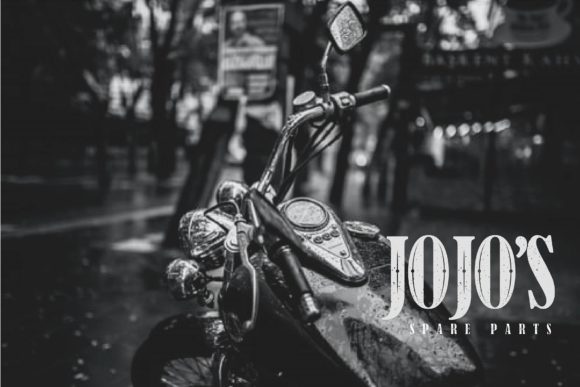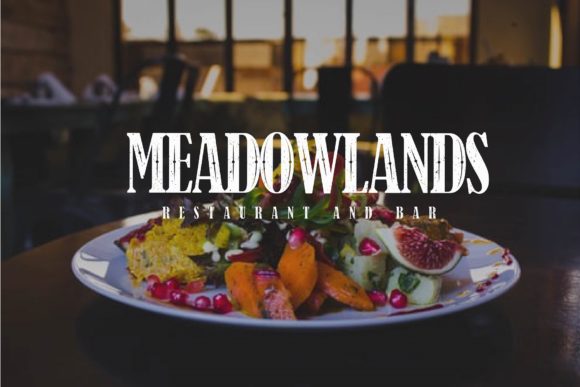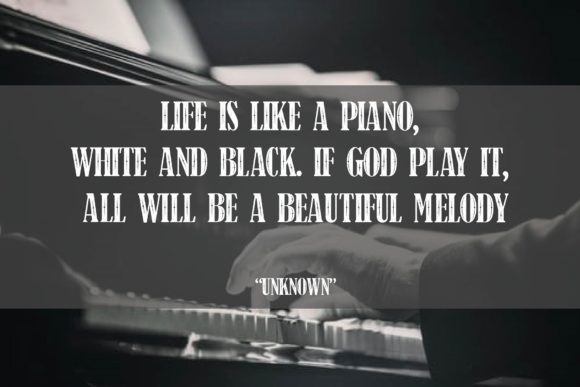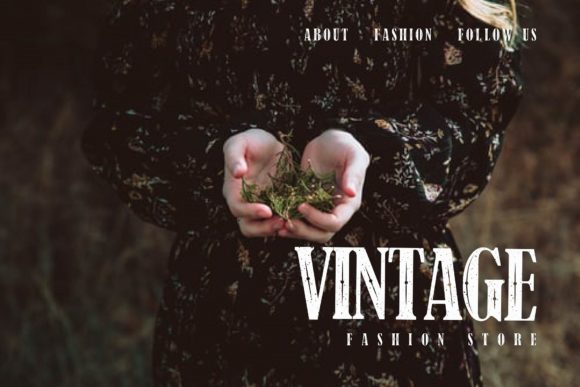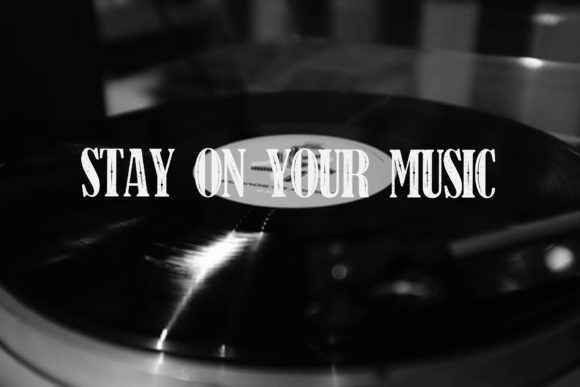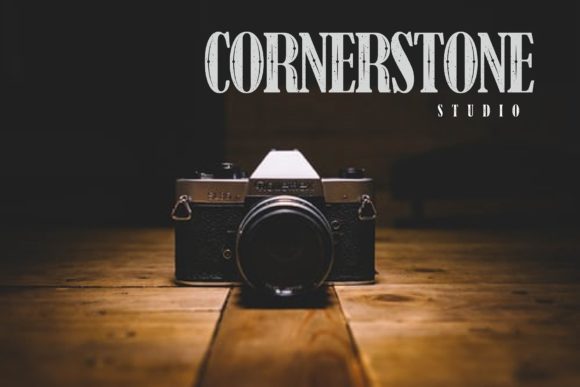
The Ultimate Guide to Billys Font: Elevate Your Designs with a Cool and Vintage Serif
I’ll never forget the time I was working on a branding project for a crafty client, and I was stuck on finding the perfect font. The client wanted something that would evoke a sense of nostalgia and sophistication, but still be eye-catching and modern. After hours of scouring through font libraries, I stumbled upon Billys Font, and it was love at first sight! 💕 In this article, I’ll share my experience with Billys Font, its features, and how to make the most of it in your designs.
An Honest Review of Billys Font
What I Love About Billys Font
• ✨ Unique vintage vibe: Billys Font has a distinct retro feel that adds a touch of elegance to any design.
• ✅ Highly versatile: This font is perfect for a wide range of projects, from branding and packaging to invitations and social media graphics.
• 💡 Excellent legibility: Despite its vintage flair, Billys Font remains clear and easy to read, even at smaller sizes.
• 🎨 OpenType features: Billys Font comes with a range of OpenType features, including stylistic alternates and glyphs, which allow for endless creative possibilities.
While Billys Font is an excellent choice for many projects, there are a few things to keep in mind:
• 🤔 Limited use in very small sizes: While Billys Font is generally legible, it may not be the best choice for very small text sizes (e.g., body text in a book or article).
• ⚠️ Some characters may require manual kerning: As with any font, you may need to adjust the kerning of certain character combinations to achieve optimal results.
The Story Behind Billys Font
Billys Font was designed by a team of creatives who wanted to create a font that would evoke a sense of nostalgia and sophistication. Inspired by vintage typography, Billys Font combines classic elegance with modern flair. The designers aimed to create a font that would be versatile, legible, and above all, beautiful.
Q: What type of projects is Billys Font best suited for?
A: Billys Font is perfect for branding, product packaging, invitations, quotes, T-shirts, labels, posters, logos, and any other design project where you want to add a touch of vintage elegance.
Q: Does Billys Font come with OpenType features?
A: Yes, Billys Font includes a range of OpenType features, including stylistic alternates and glyphs, which allow for endless creative possibilities.
Q: Is Billys Font suitable for body text?
A: While Billys Font is legible, it’s best suited for headlines, titles, and short-form text. For longer-form text, you may want to consider a more traditional serif font.